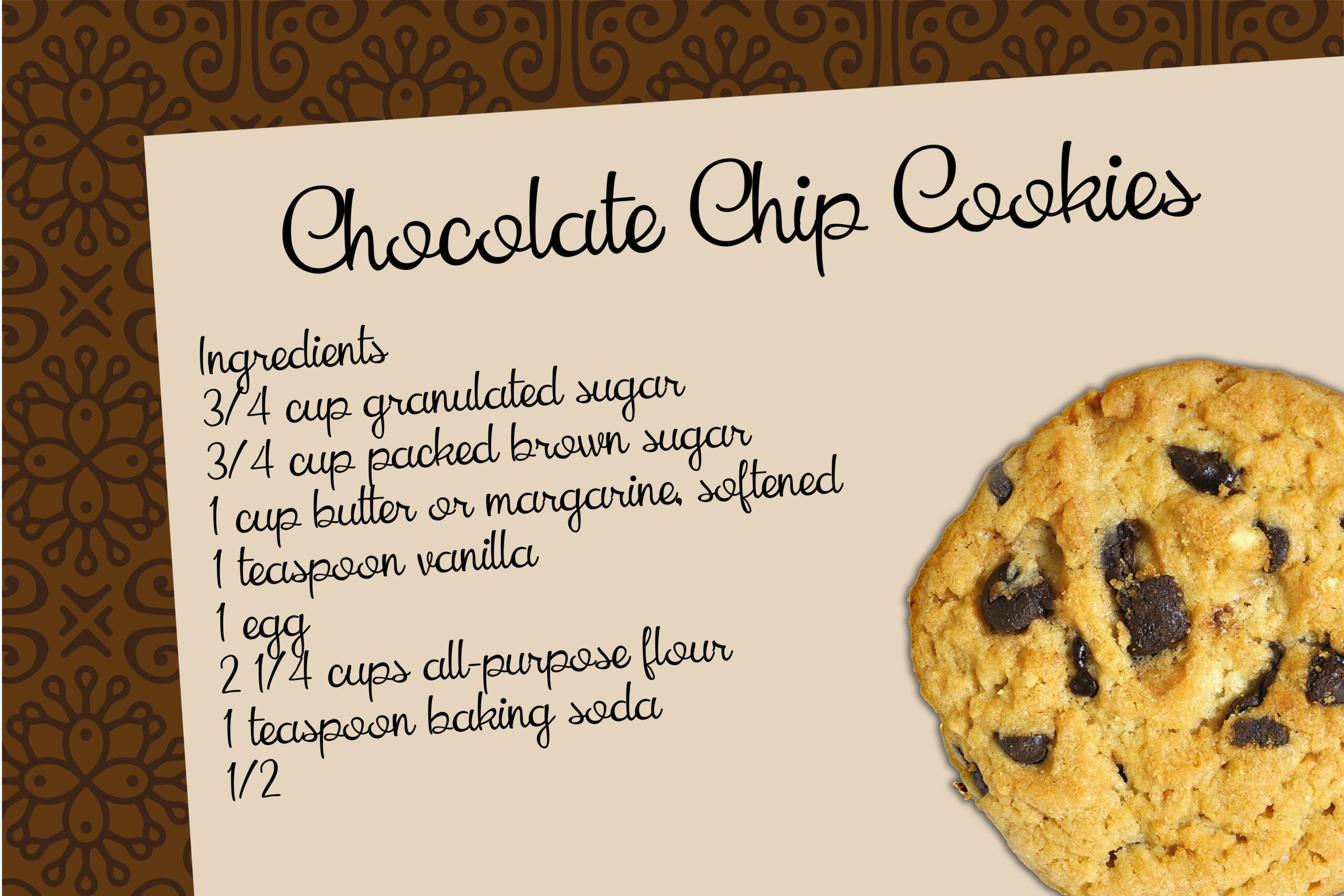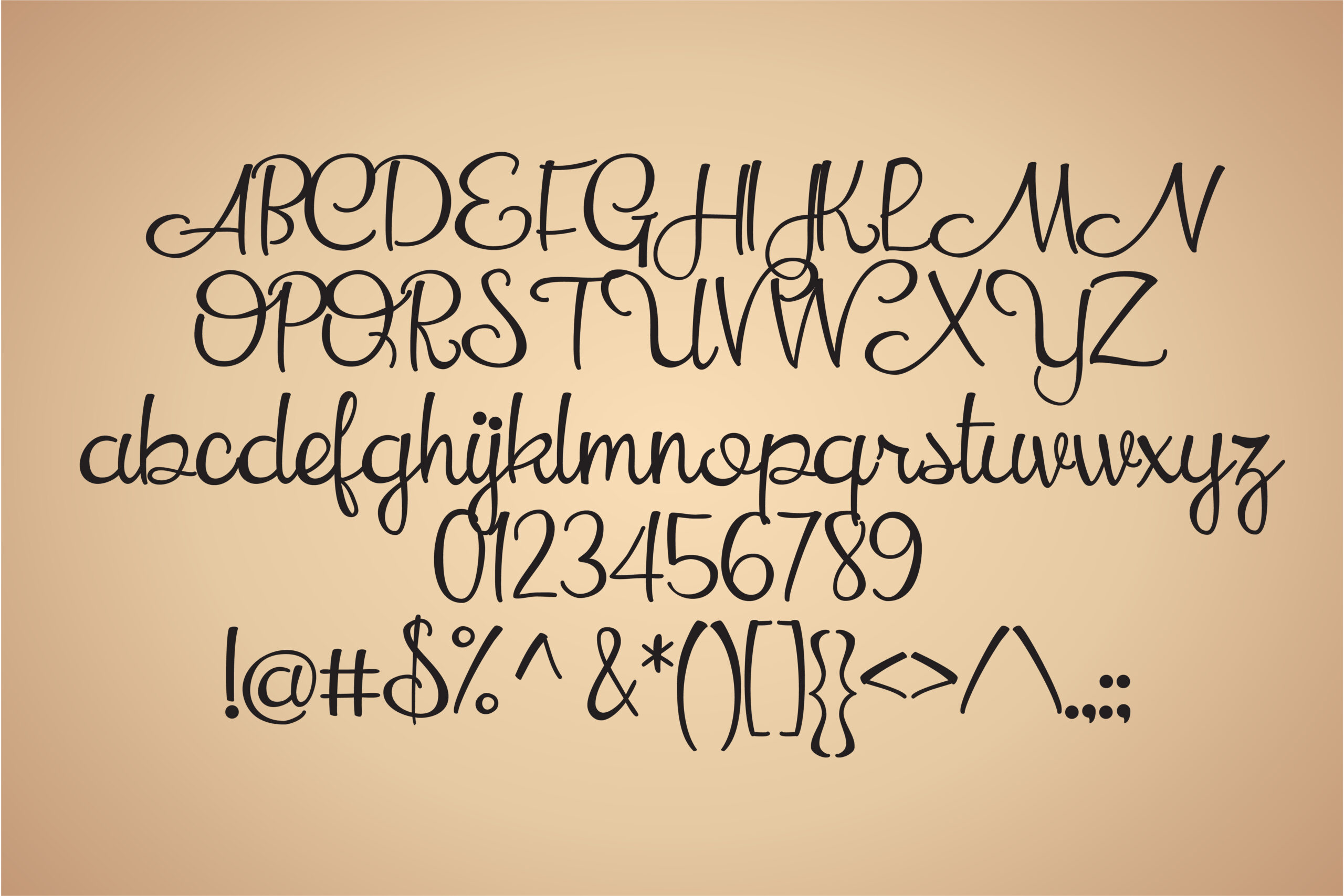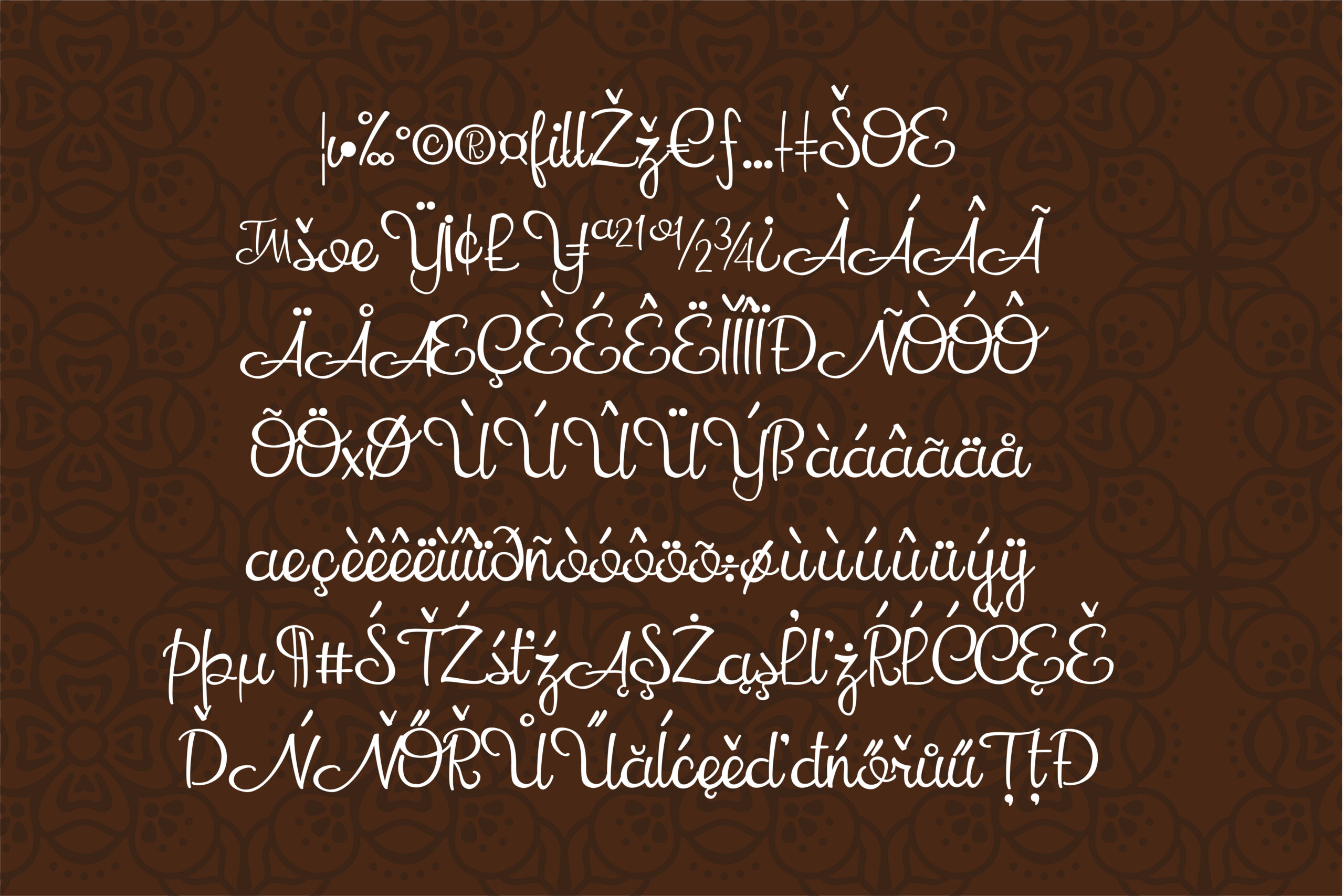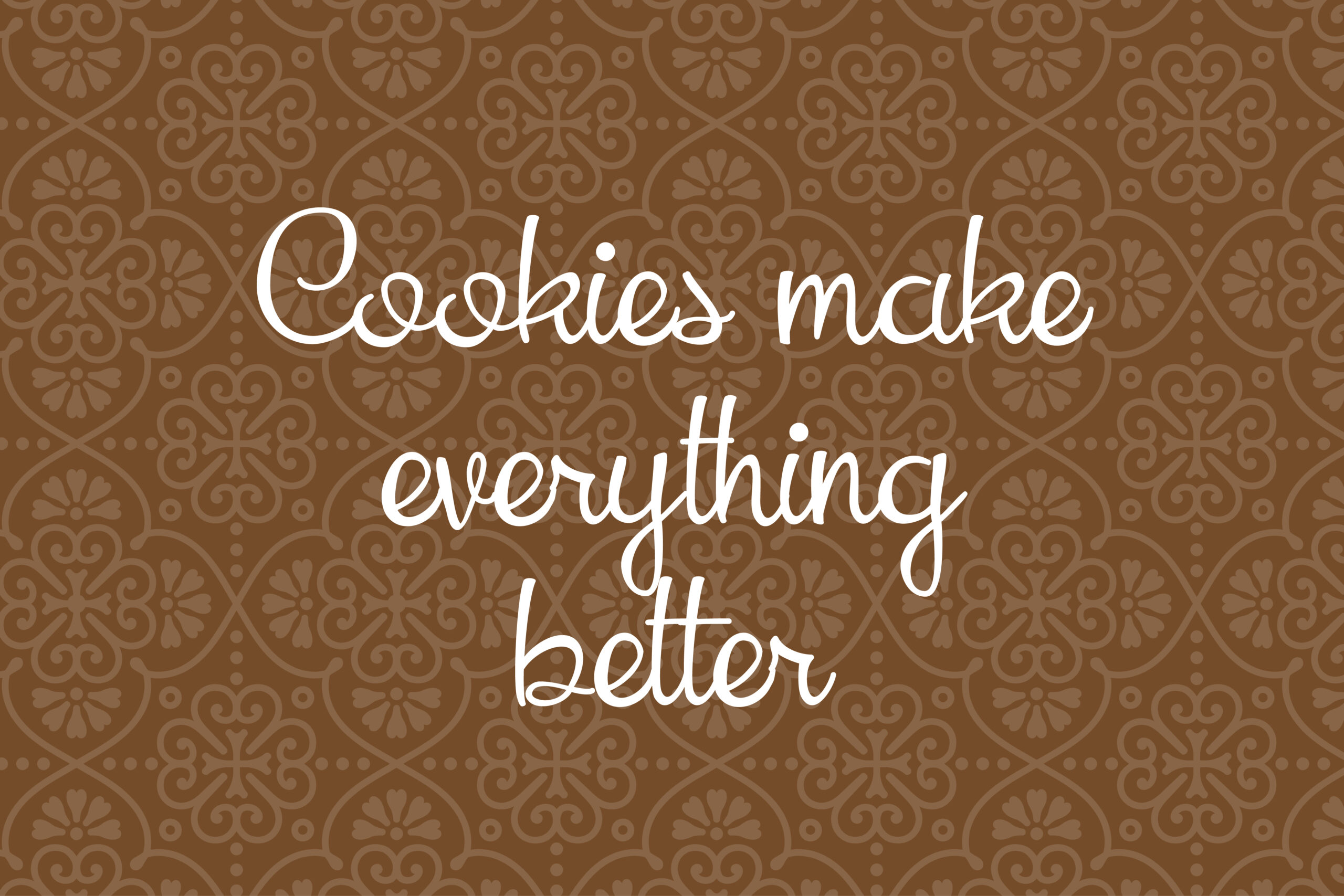
Cookie King Font
About Cookie King Font
Cookie King is a deliciously fresh script with a handmade style. It’s great for journaling, letter writing, invitations, quotes, and more given its irregular appeal and handwritten construction.